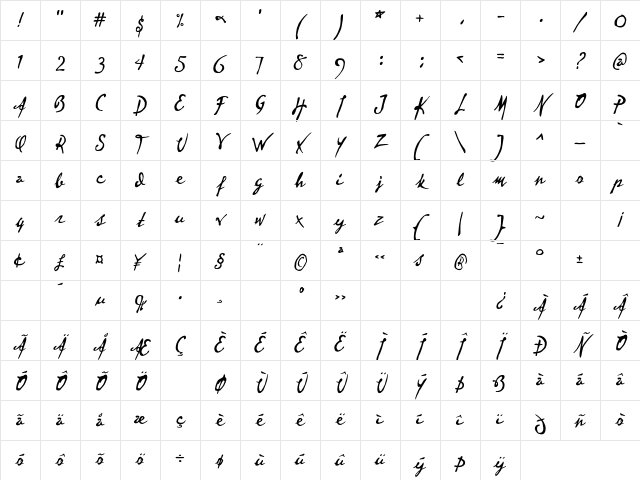
P22Vincent Regular Free Font
P22Vincent Regular
P22Vincent Family
Design Context for P22Vincent
P22Vincent is a composed and adaptable typeface that performs quietly and consistently across a wide range of design contexts.